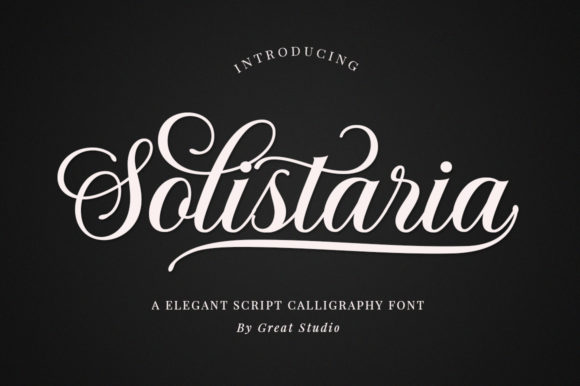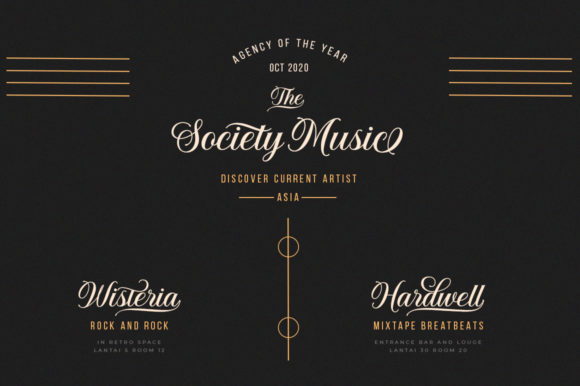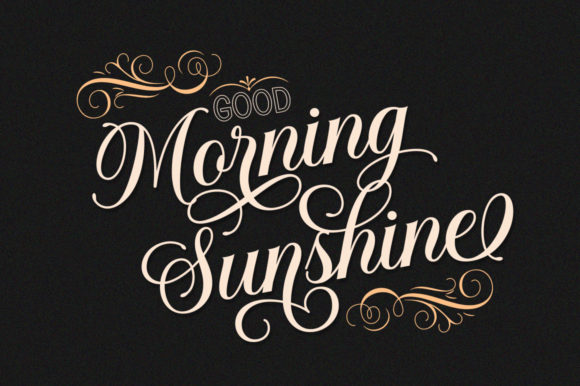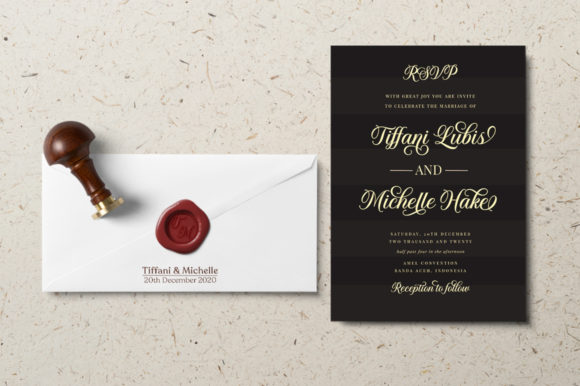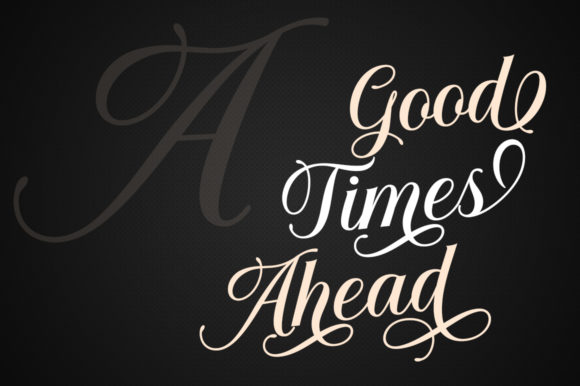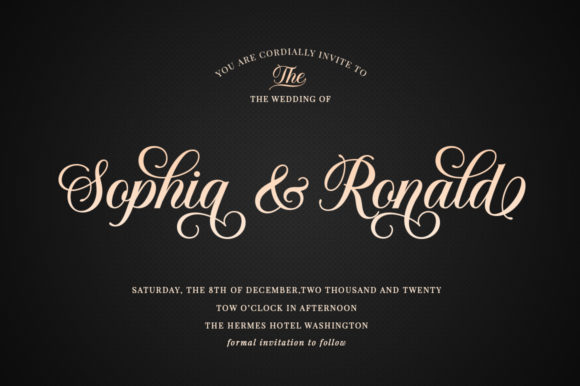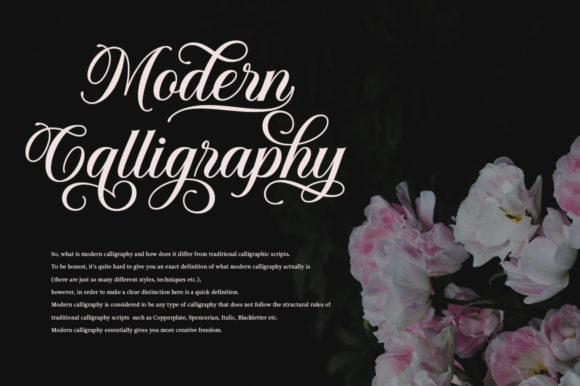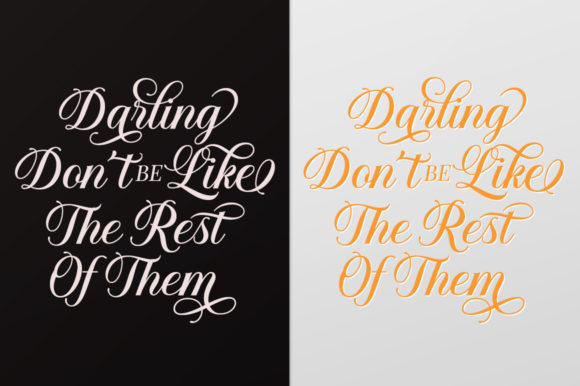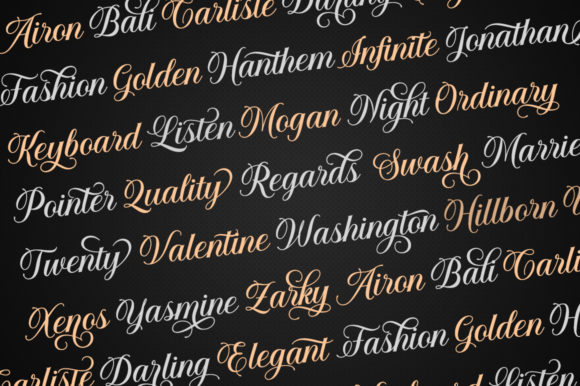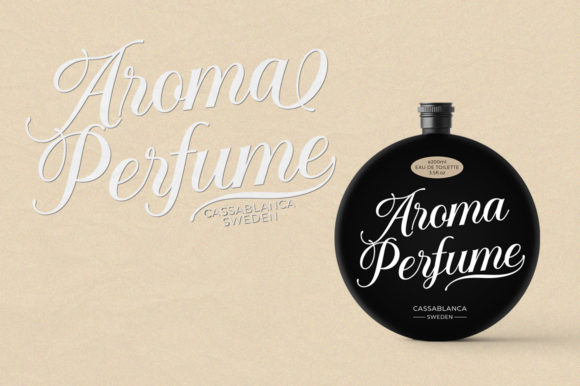
HomeScript FontsSolistaria Font Script Fonts Solistaria Font FacebookXPinterestWhatsApp Solistaria Font Poster 2 Solistaria Font Poster 3 Solistaria Font Poster 4 Solistaria Font Poster 5 Solistaria Font Poster 6 Solistaria Font Poster 7 Solistaria Font Poster 8 Solistaria Font Poster 9 Solistaria Font Poster 10 About Solistaria Font Solistaria is a wonderful calligraphy font with gorgeous swashes. Fall in love with its sophisticated charm! DOWNLOAD ON CREATIVE FABRICAThis font is sold and delivered by Creative Fabrica. Font Canyon may earn a commission if you buy through this link. People also explored Jessica Script Font Haris Wood Candyland Font Worlenz Font Executive Class Font Ayella Font Amellda Font Jadey Font Shenanigans Font 281 0 TagsSolistaria Font Previous articleSunshine Wishes FontNext articleComebro Font LEAVE A REPLY Cancel reply Comment: Please enter your comment! Name:* Please enter your name here Email:* You have entered an incorrect email address! Please enter your email address here Website: Save my name, email, and website in this browser for the next time I comment. Personal Use Free Gila Personal Use Free Read more about this font Love Memories Personal Use Free Read more about this font Straighler Personal Use Free Read more about this font Hagia Signal Personal Use Free Read more about this font BLOG 5 Fonts That Will Dominate Design Trends in 2026 5 Fonts for 2026 That Will Dominate Design Trends Typography plays a critical role in visual communication, and as we look ahead to 2026, itβs... Using Fonts in Digital Marketing: Tips to Strengthen Your Brand Identity Elegant Wedding Invitation Fonts β Handwritten & Script Fonts Transform Your Website: Elevate Your Typography with 7 Best Web Font Generators